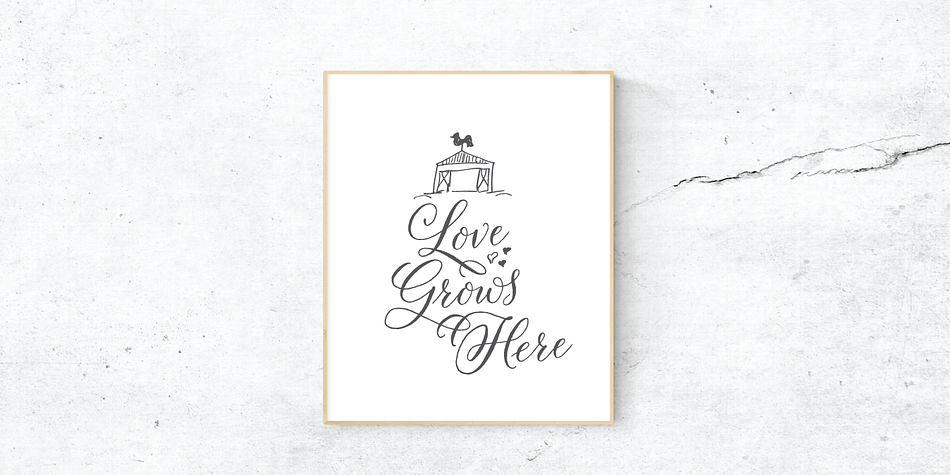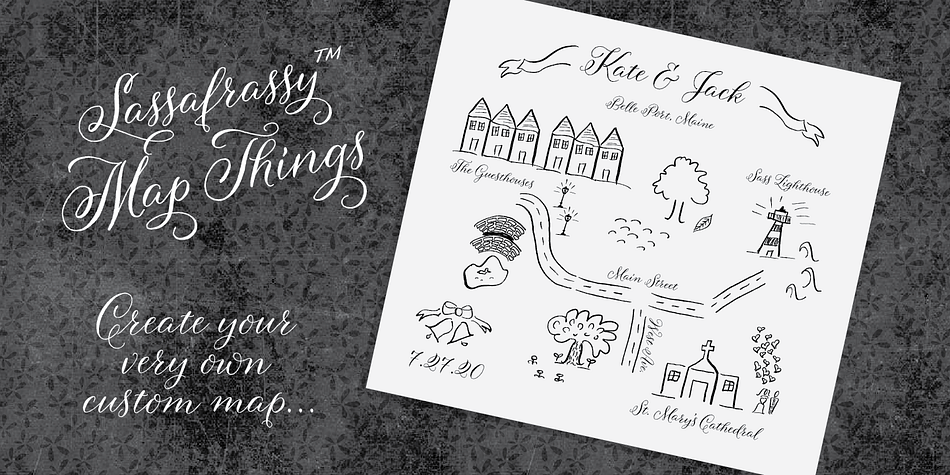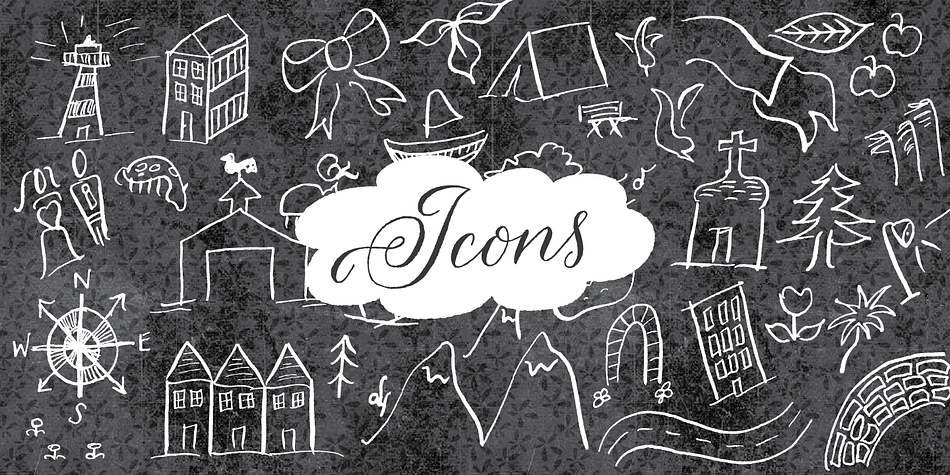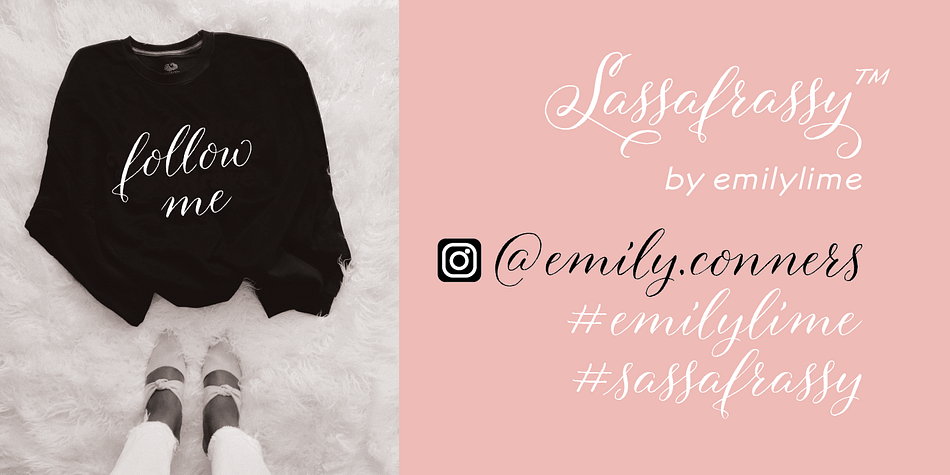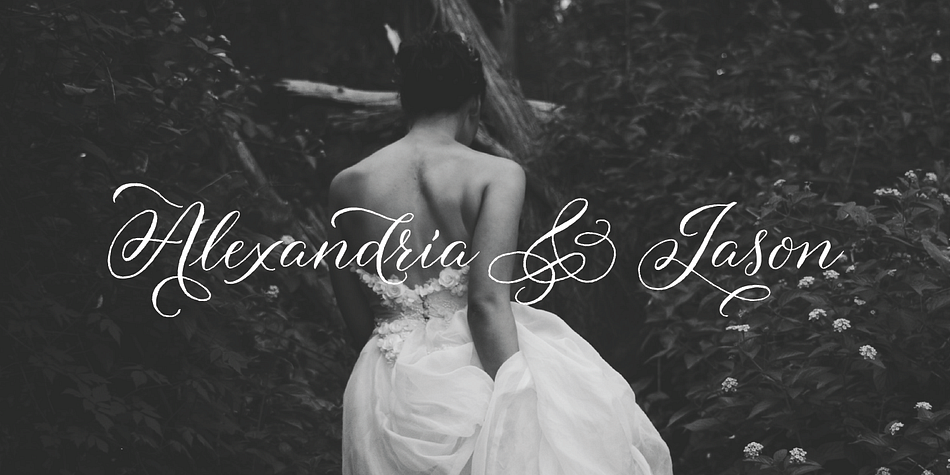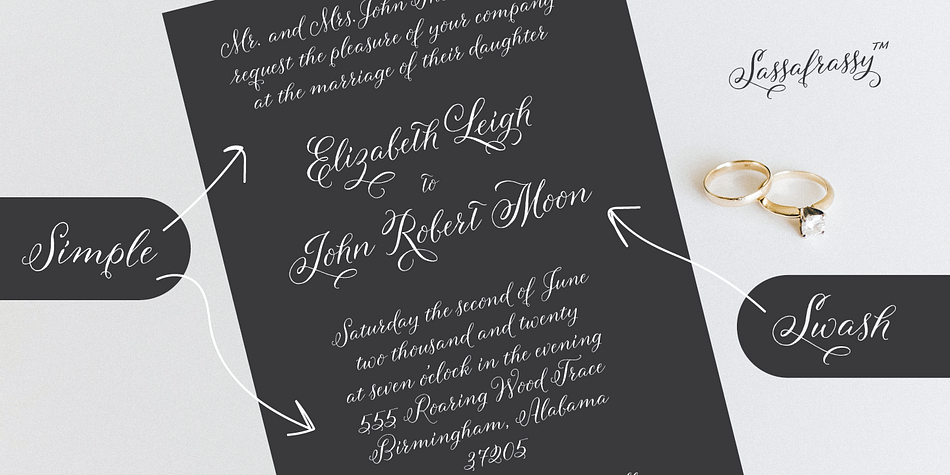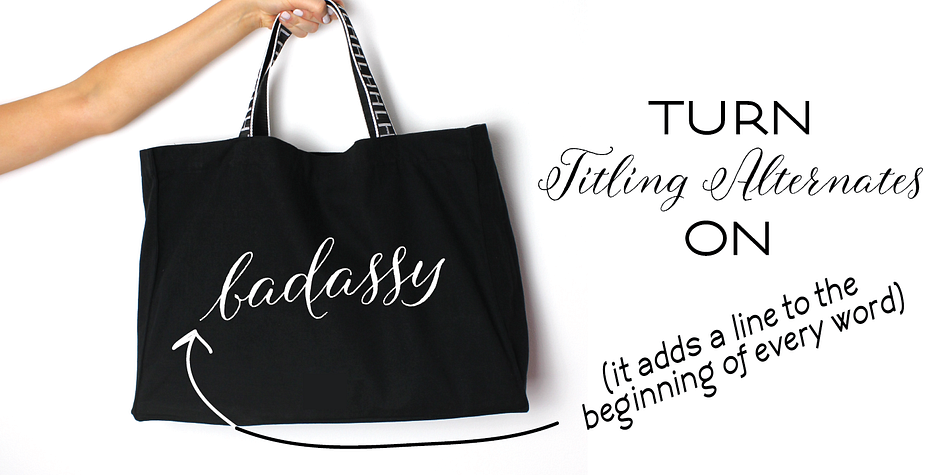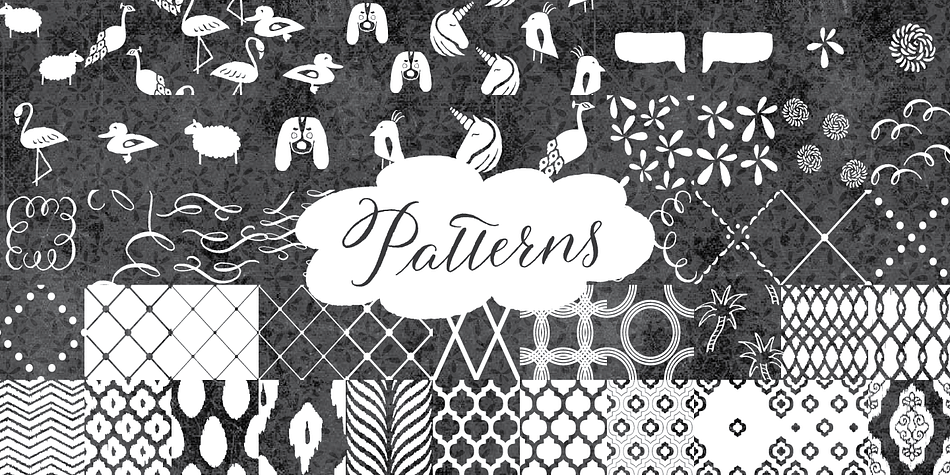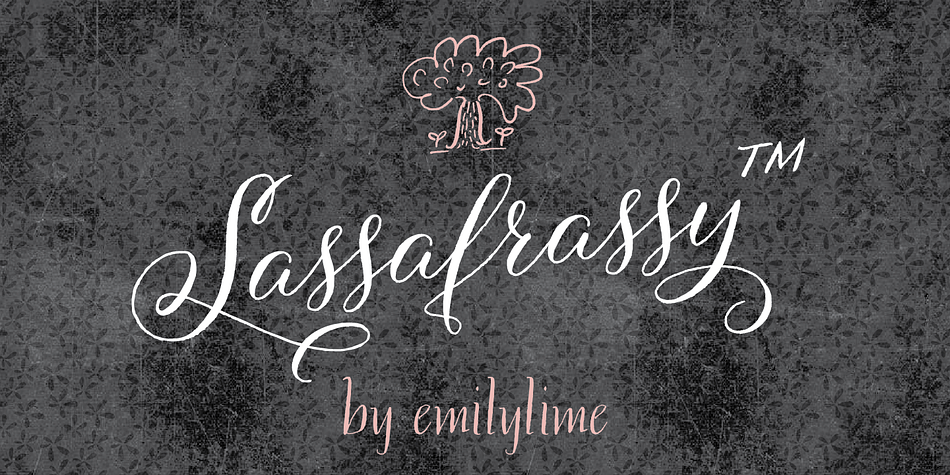
Sassafrassy is a modern calligraphy, script and dingbat font family. This typeface has five styles and was published by Emily Lime Design.
Sassafrassy™ is a fun hand-calligraphy font family that includes 2 font styles (Simple & Swashy), Map Things & a Pattern set to help you create beautiful custom designs. Written using a flexible steel nib & ink on paper.
The Simple version includes an extensive character set designed for ease of use. The Swash version has all of the swash characters and gives the font a different stylistic feel. The Pro version contains all characters from both of these two fonts, over 1000 glyphs in total.
Also included in this family is a fun “Map Things” set so you can create your own hand-drawn maps & a Free Pattern Set (some of which were used to create the above banners).
Language support includes your standard characters plus Eastern European & Baltic character sets.